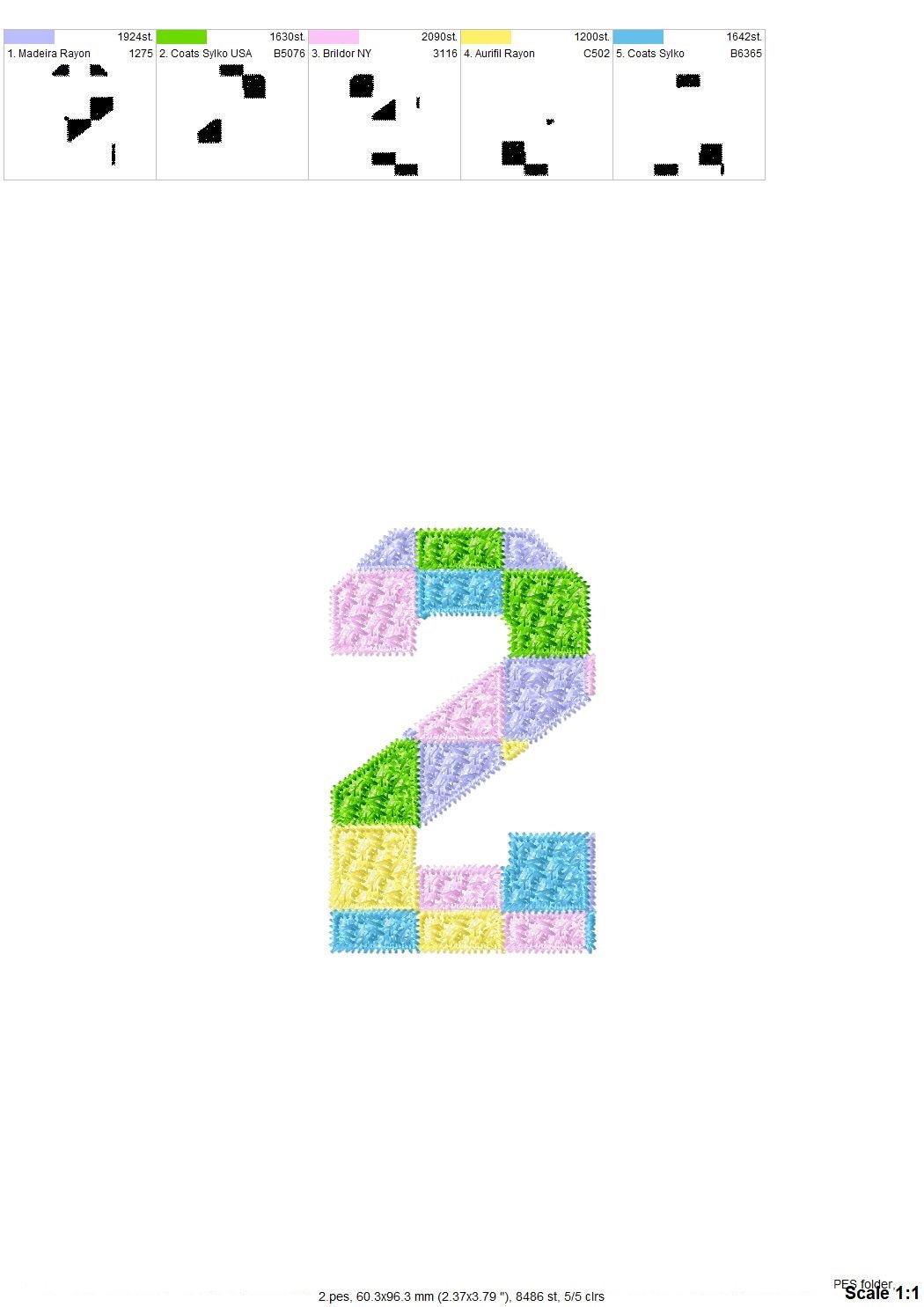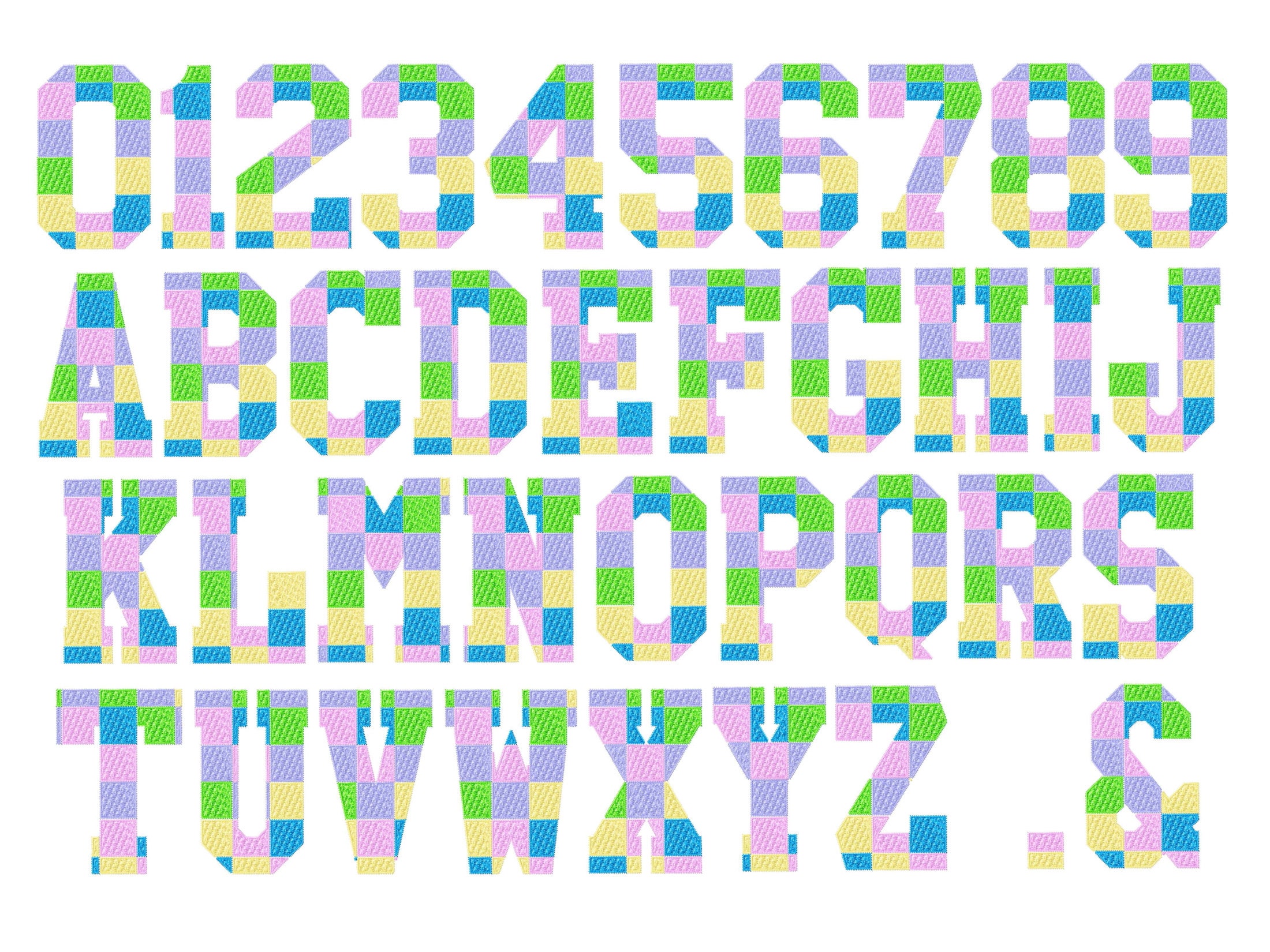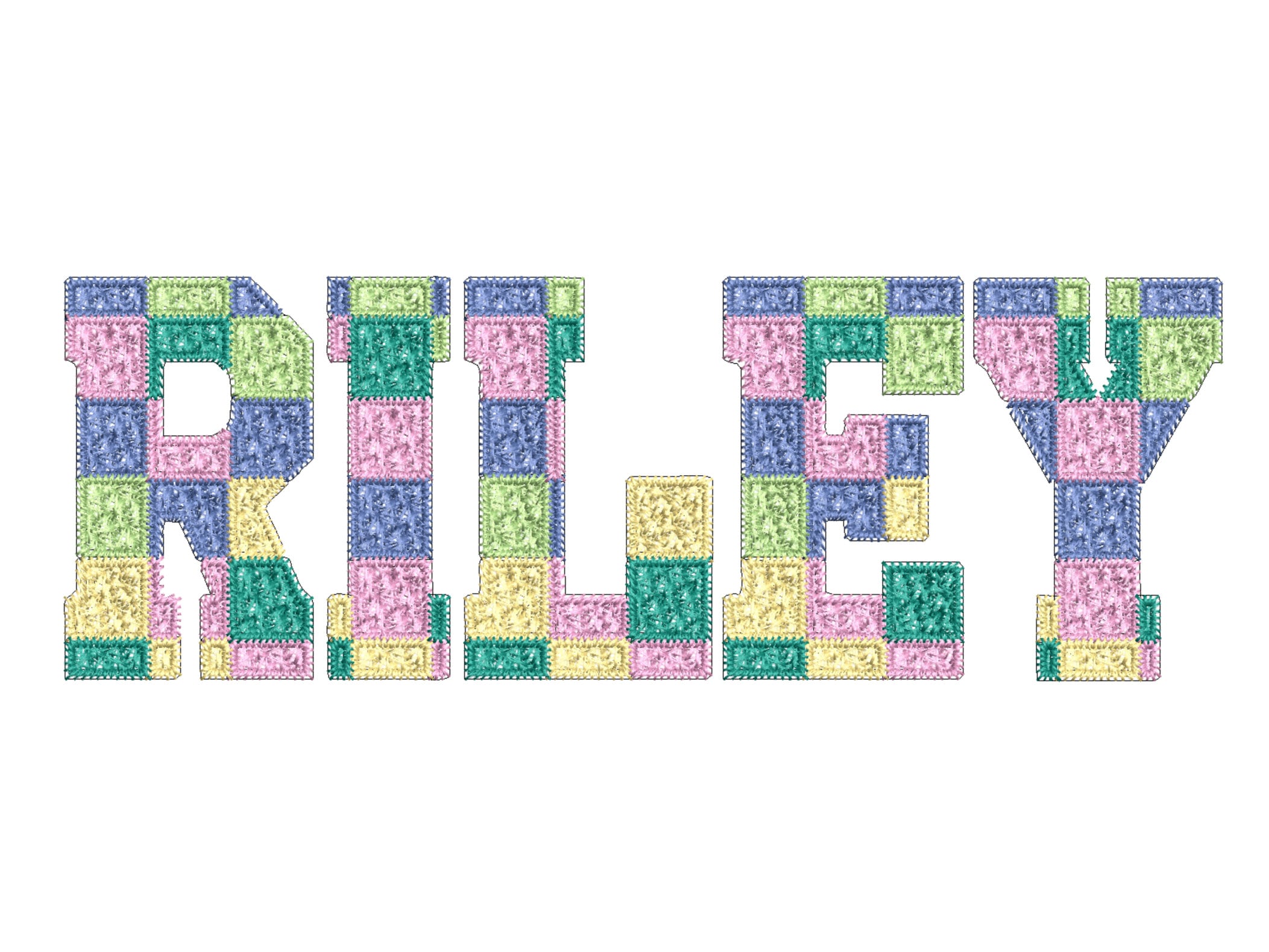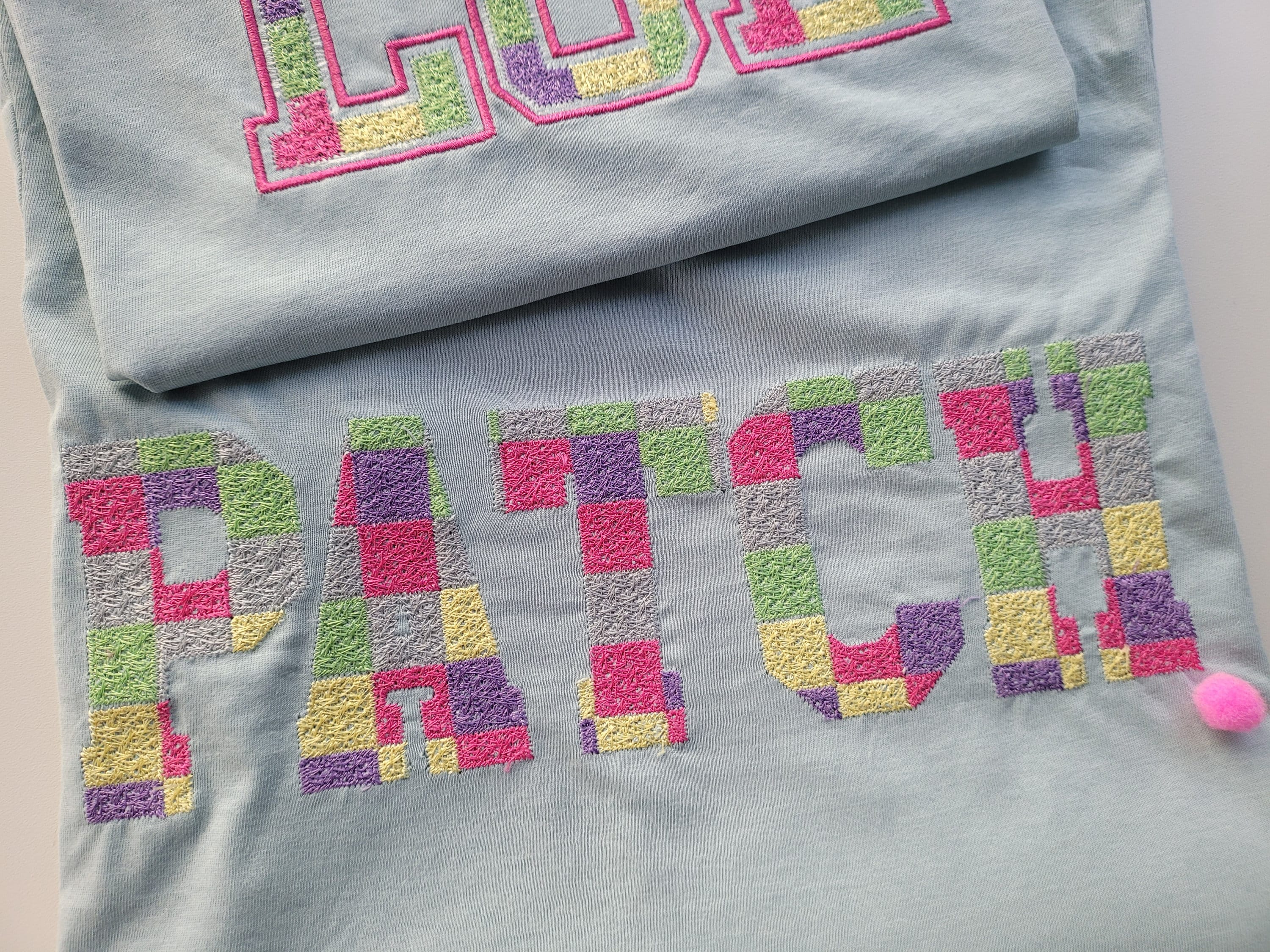
Faux Chenille Patch block Font alphabet letters machine embroidery designs in assorted sizes 3, 3.8, 4.3, 5, 6 inches kids name monogram, BX included
The font looks like chenille, load, and stitch. Chenille stitch filled. Stunning effect!
Whole alphabet A-Z, numbers, and punctuation . &